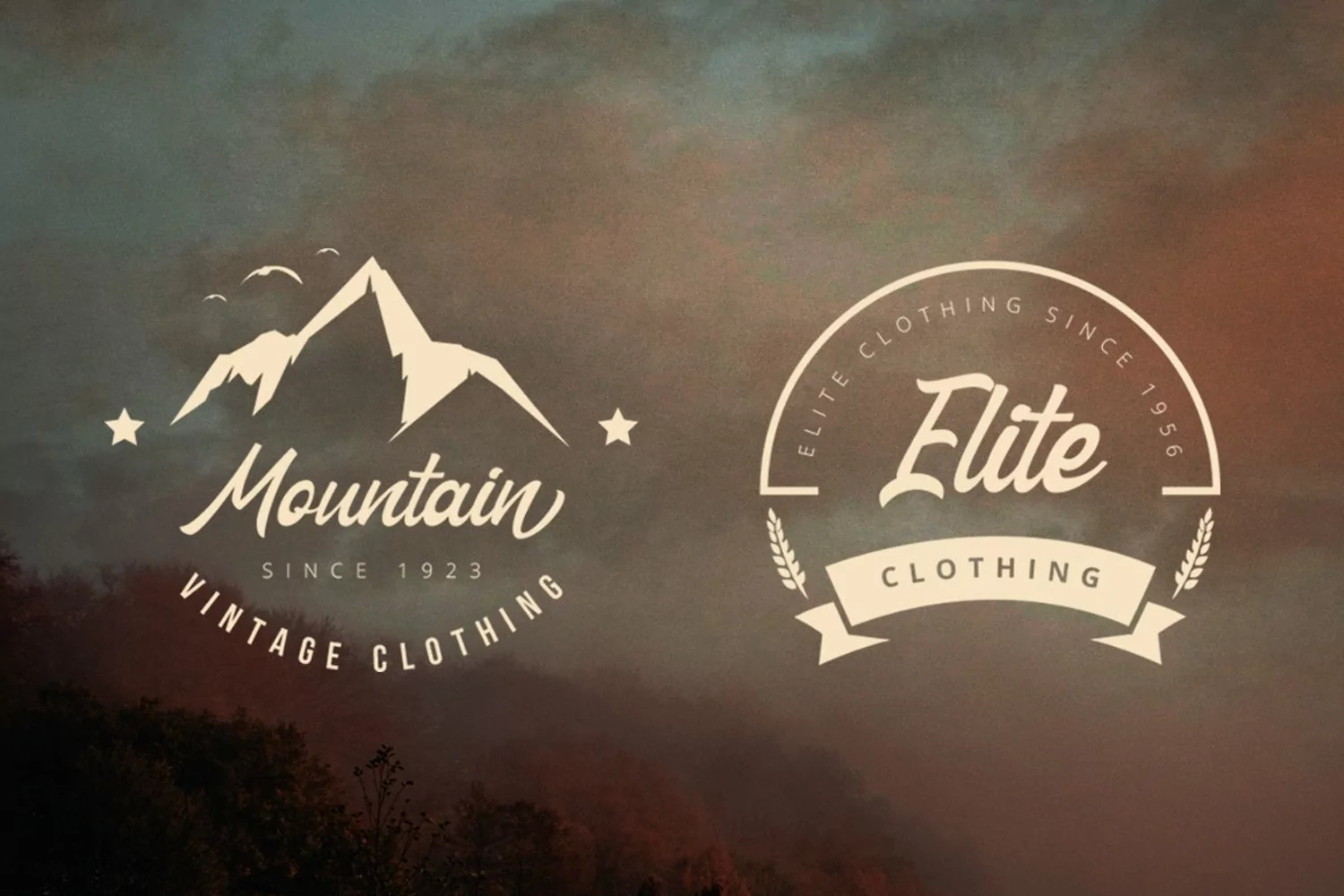
Nathan - Vintage Script Font
Nathan Vintage Script was very inspired from modern vintage and retro styleWith font duo that combines two trends (Modern Sans serif caps and Vintage Script) You'll be seeing this combination a lot more in the design worldAll characters have an imperfect shape that gives a natural look in design. It easily cooperating together and perfect for creating the traditional style logos, labels, package design, lettering for t-shirts and much others.Features :
Multilingual support It also includes a clean version without texture. OpenType features (ligatures and alternates) helps to make your lettering more interesting. Also there is swashes alternateThis font has a vintage feel with styles stamp on each letter. great for Logotype, Branding Design, Vintage Logo Design, Digital Lettering Arts, Retro,brush font, script font, bold script, Vintage lettering, and any vintage design needs.Software for use this font: Adobe Illustrator, Adobe Photoshop, Adobe Indesign, Word, Corel draw, inkscape).Cheers !Chandra - Vultype Co